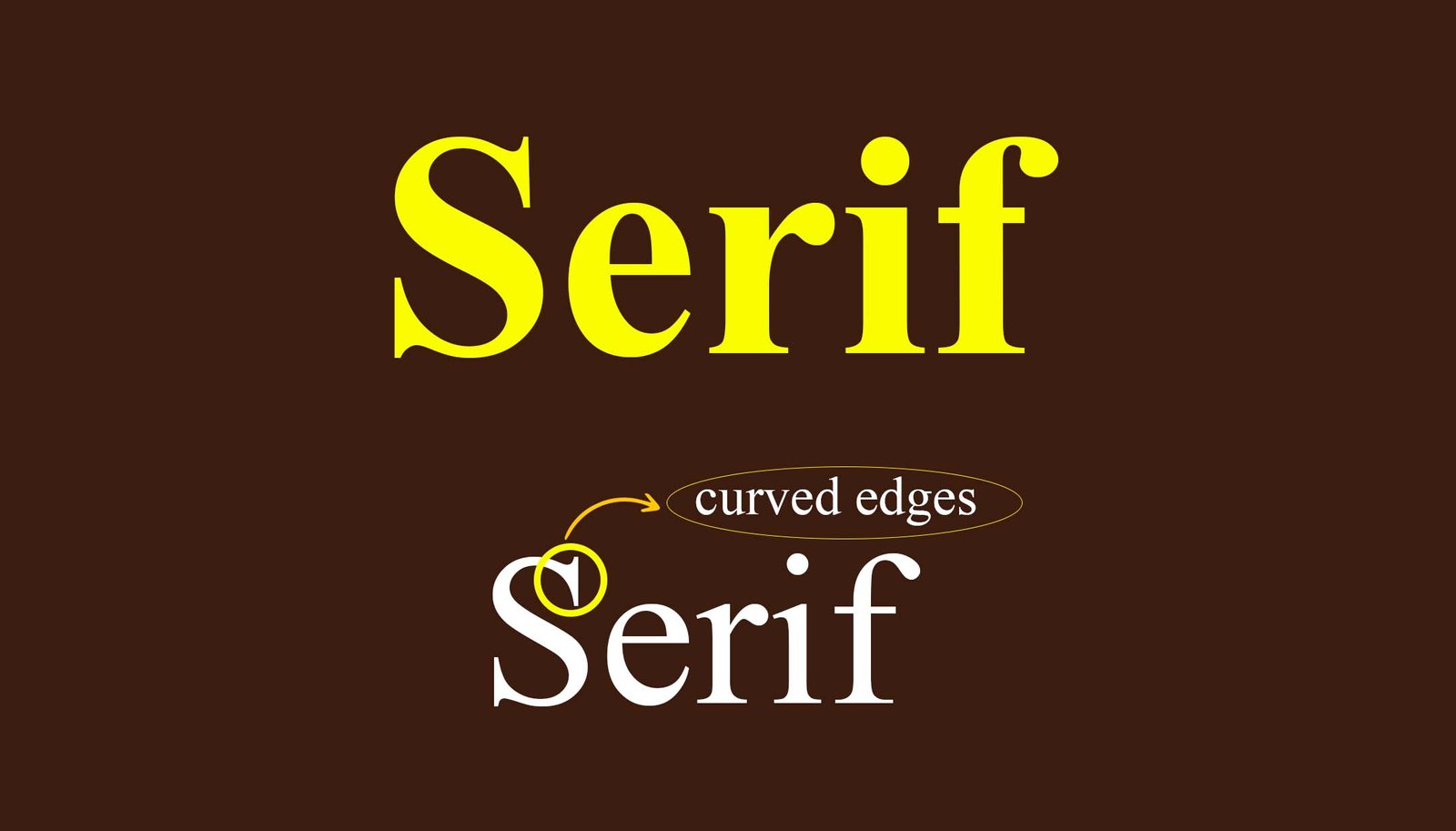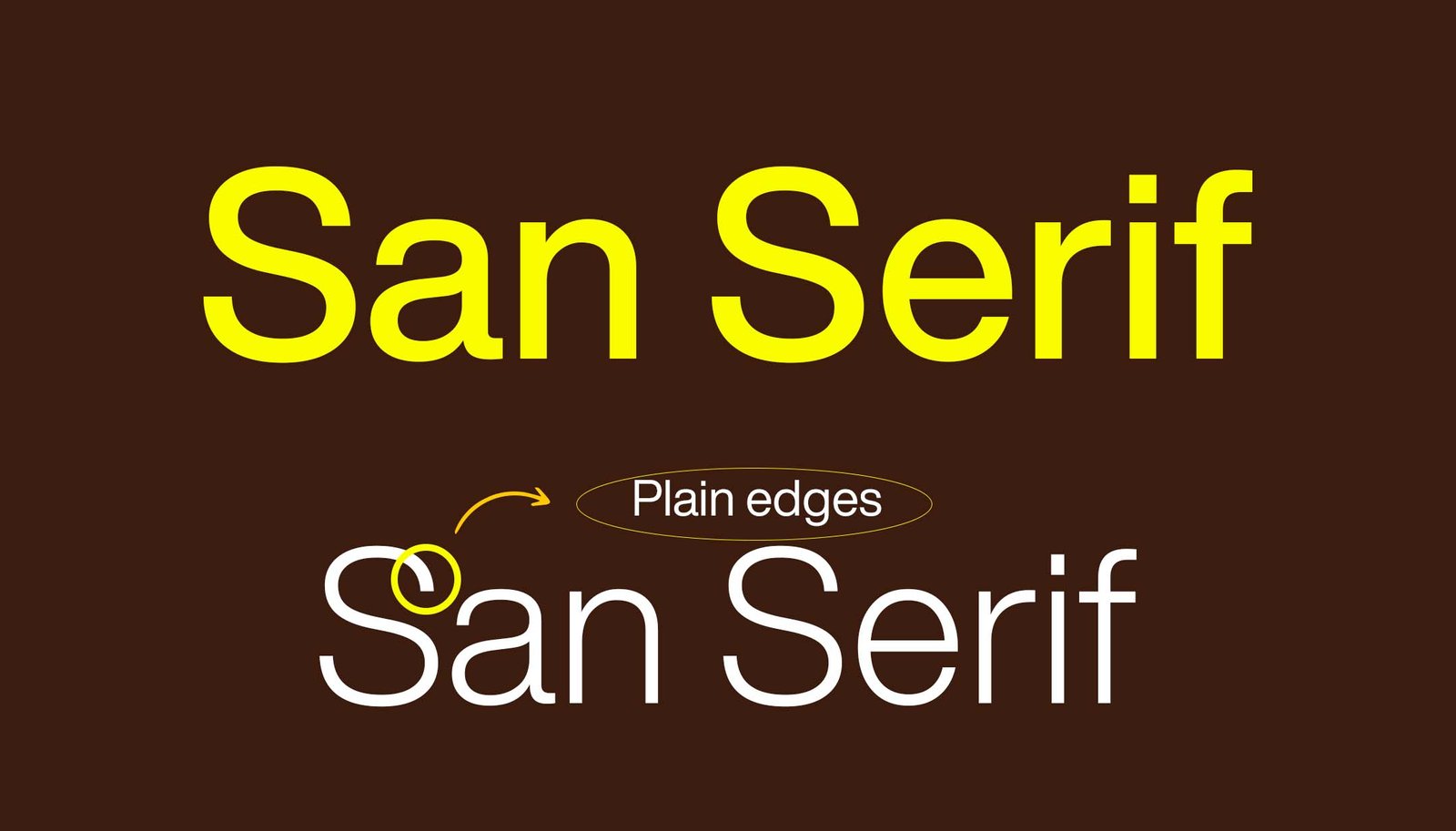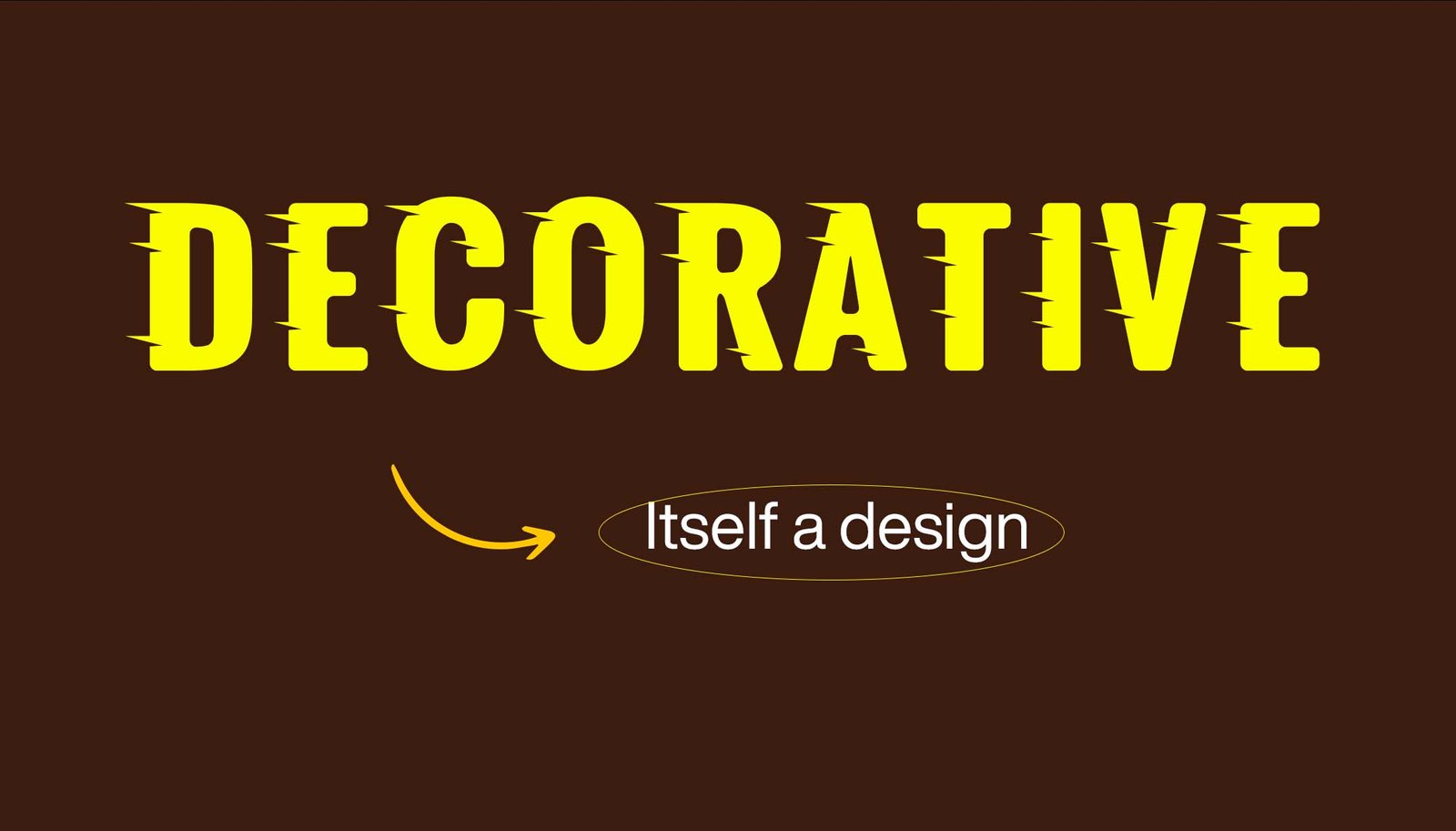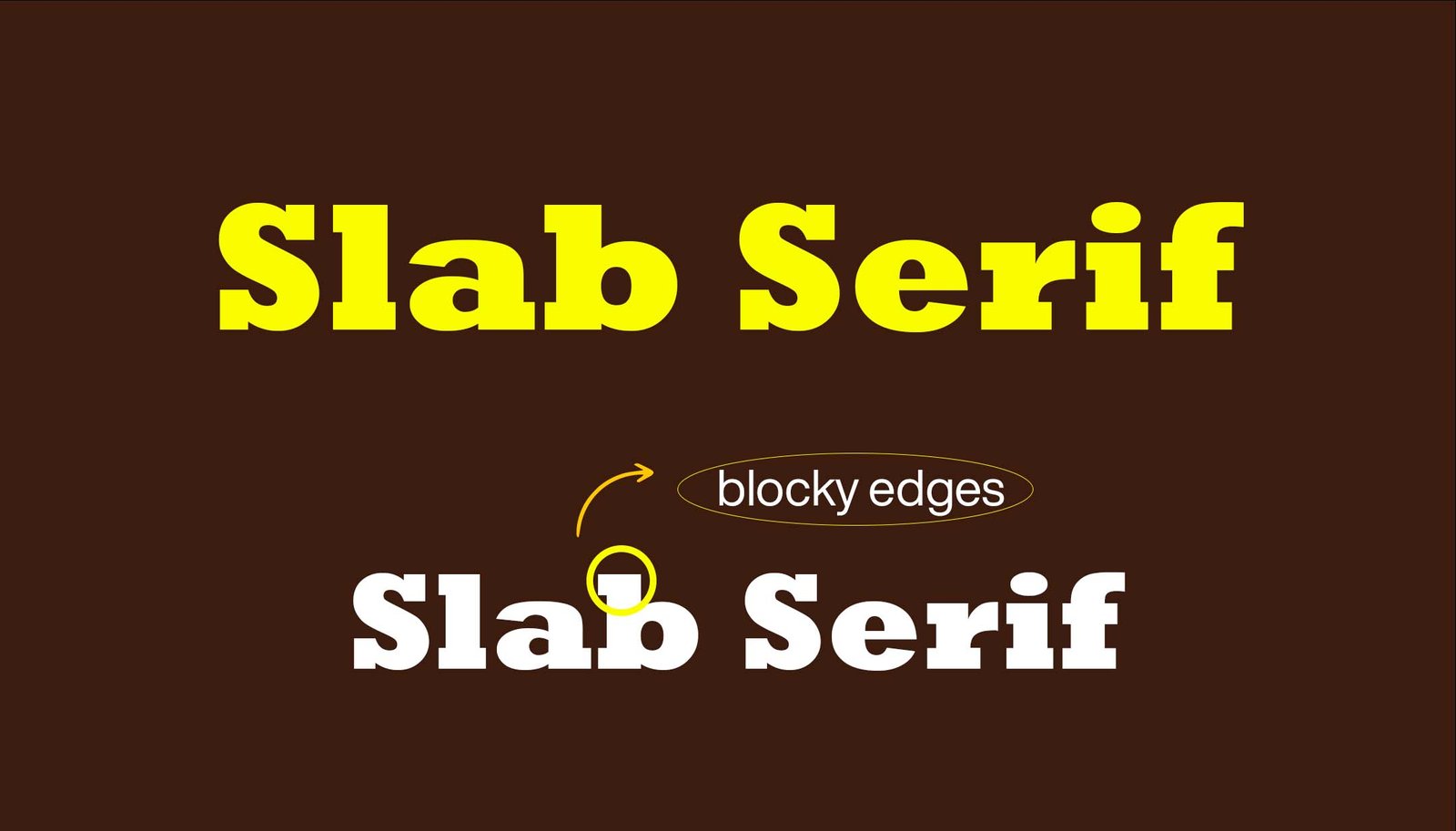
Typography | Secrets of Choosing the Right fonts for Your Brand
Typography- A powerful guide on how to choose the right fonts
Most people know what typography is, but many struggle to decide what typeface to use in their designs. Typography is the technique of placing text and letters into creative. It involves font style, appearance, and structure, which aim to represent emotions and convey specific messages. In short, typography is what brings the text to life. Today, I will delve into five types of typography styles in detail and guide on choosing the appropriate font for your design.
Serif- Fonts
a yellow and white text on a brown background,Serif fonts, typography
Serif Fonts
The serif font has small decorative strokes and curved edges. They convey seriousness, elegance, and a touch of class to any design. You can commonly see serif fonts in newspapers, law firms, schools, etc. They also represent luxury and can be used in brands with premium vibes. For example, when you design a premium laptop banner, serif fonts are the best option to define its premiums. You can make it feel more elegant by reducing the font size and increasing letter spacing.
a smart watch on a purple surface, Serif banner
Banner based on a serif font
Things to keep in mind:
• Serif fonts are always used in official statements and serious matters (for example, in news-related graphics or newspapers).
• Use them in brands representing luxury, class, and elegance (salon, jewellery, or high-end products).
San-Serif Fonts
San serif fonts, Typography
San serif Fonts
San Serif is clean, sleek, modern, and clean-cut. They do not have small decorative strokes at the end of the letters, resulting in a clean and minimal appearance. San-serif fonts are mainly used in digital interfaces and screens. Helvetica (variants) has been used in logos by brands such as Microsoft and Jeep because of its pleasing aesthetics and versatility. If you’re using sans-serif fonts for your project, keep these guidelines in mind.
Sans serif Banner, Banner design
Banner based on a San Serif font
• Avoid using bold or heavy sans serifs for long body text.
• Sans serifs work well for tech, sports, fashion, and more.
• Use them to convey clear and direct information.
Tip: If you want to make your design more stylish or elegant, use bold and light versions of San Serif fonts.
Decorative or display fonts.
Decorative font, Typography
Decorative or Display fonts
Display fonts trigger a hard emotion expressing speed, energy, and casualness. They are very creatively designed fonts. Using a display font can make the design more memorable and eye-catching. When working on a poster, a logo, or a website, don’t be afraid to experiment with decorative fonts to create a unique and memorable visual identity for your brand.
1. Try using them in headings to make them memorable.
2. As it shows hard emotions, use them in designs that display hardness (in the gym, sports, and music posters).
Script Fonts
Script Font, Typography
Script fonts or handwritten calligraphy
Script fonts are identified by their flowing and handwritten calligraphy or cursive-like appearance. Script fonts show soft emotions that add romanticism and sophistication to any design. Imagine when you create a wedding invitation or a love letter. A beautiful script font always comes to mind first, connecting the words with a sense of intimacy and warmth. These are mainly used in love-themed graphics and makeup creatives, which show a sense of romance and femininity. They are the perfect choice for conveying emotions of love, beauty, and elegance.
1. Use them in makeup-related designs, flower shop brands, or designs that show love, softness, and elegance.
2. Try to use them in headings.
3. Try not to use them in capital letters.
Slab Serif Fonts
Slab serif
representation of slab serif fonts
Slab serifs are closely similar to sans serifs but have hard, blocky edges instead of curved ones. These fonts convey both casualness and seriousness at the same time or in the same place. Imagine that when you design a school poster, it needs to be serious because it’s about education, and it also needs to be funny to catch students’ attention. You can use slab serif fonts in movie posters where the movie theme is based on school or student life. So, when designing a poster for a school event or a movie, Slab Serif fonts are a great choice.
1. You can mostly use them for brands that show seriousness and fun at the same time.
2. Try to choose them for the heading text.
3. You can also use them for song posters (with serious and funny emotions)
Typography: Tips and Tricks
Quick tips
• Always try to choose family fonts (which include bold, semi-bold, light, italic, etc.). Choose bold font for the heading, semibold for the subheading, and light fonts for paragraph text.
• It is necessary to choose professional fonts (which are designed by professional artists) for your designs. Avoid using free fonts if you are working professionally.
Conclusion
Typography in graphic design is a little bit of both: art and science. It’s about choosing the right type of font, size, and spacing, and how you arrange all that in your design. If you understand basic types and at least keep up with modern trends, you will be able to create something that not only looks good but also captures your audience’s attention and helps deliver the message.